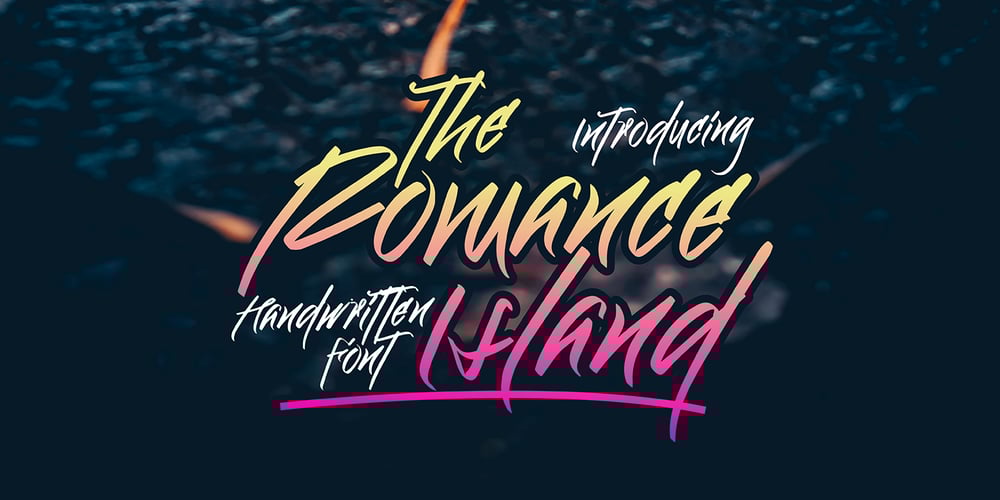
The Romance Island Font Family was designed by Sipanji and published by Sipanji21. The Romance Island contains 1 styles and family package options. Hello, this is The Romance Island – Realistic Handwritten Monoline Display Font!This font designed so that users can use it more easily and make Monoline designs easier. The Romance Island is very suitable for use in various media such as; packaging, logos, labels, posters, shirt designs, bulletins, typography, and many other media, especially with Monoline look.